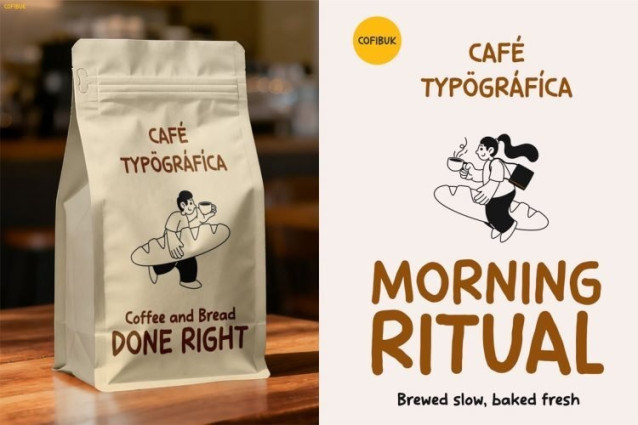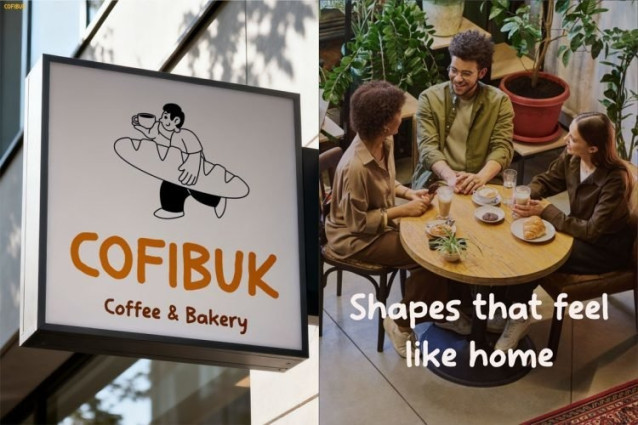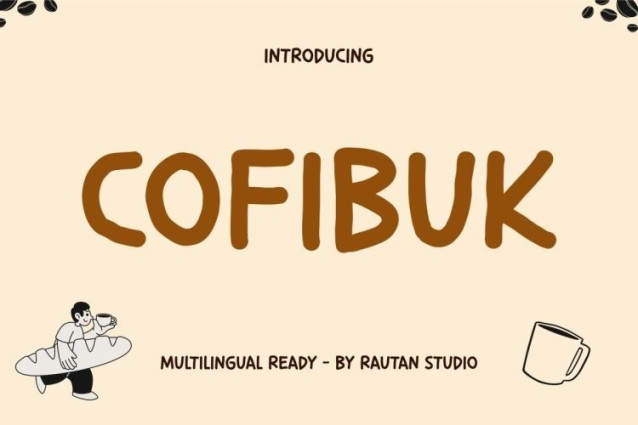
Cofibuk Font
Cofibuk is a warm, hand-drawn display font with soft, rounded letters that evoke a cozy, artisanal feel. Its organic shapes and slightly uneven, hand-lettered appearance give it a friendly, approachable personality that feels instantly welcoming and down-to-earth.
Natural fits include café signage, bakery packaging, coffee bag labels, artisanal food branding, menu designs, and casual social posts. It works beautifully for headlines, posters, and product packaging where a touch of handmade charm and comfort is needed to connect with an audience.